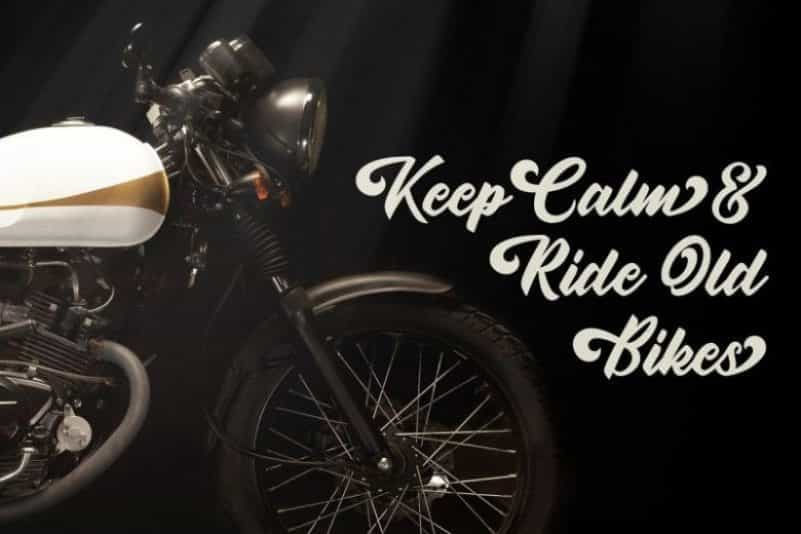
Oatlander Font is a hand lettering script font that has a clear style and dramatic movement this makes it perfect for your next creative project such as logos, printed quotes, invitations, cards, product packaging, headers, Logotype Letterhead Poster Apparel Design Label etc.